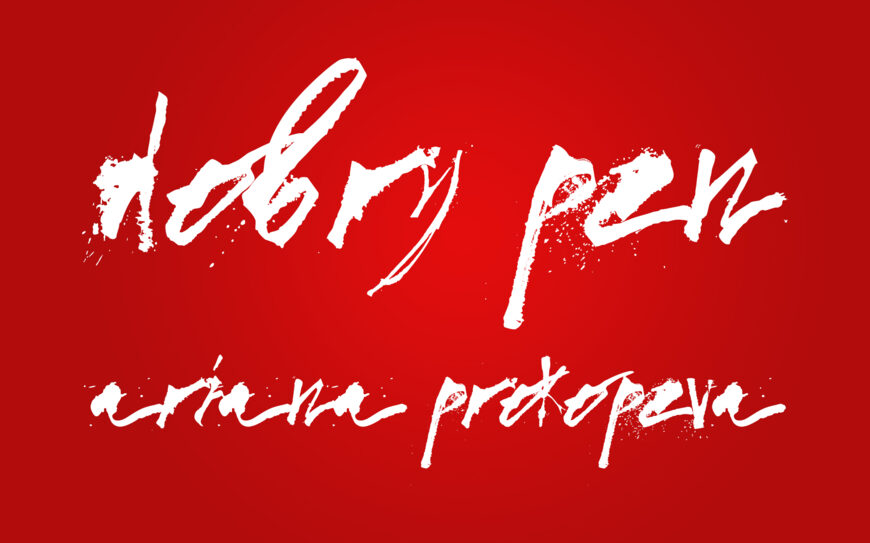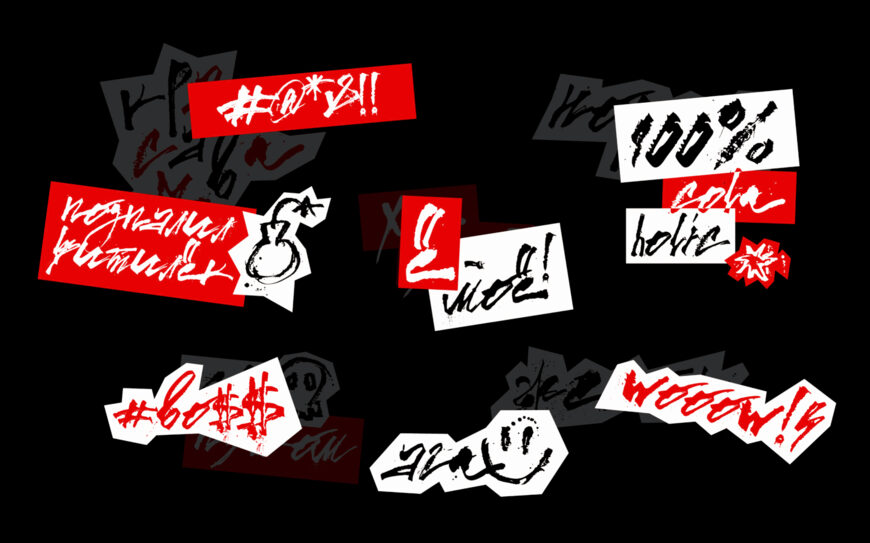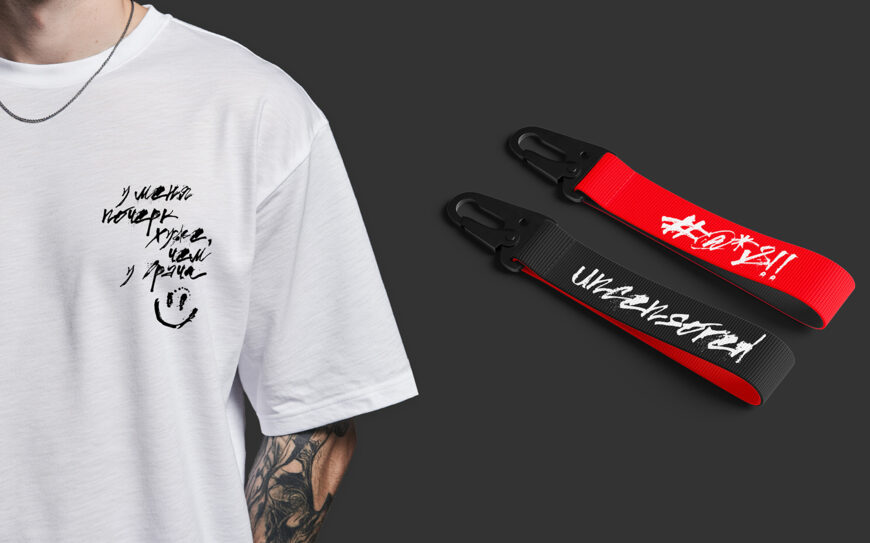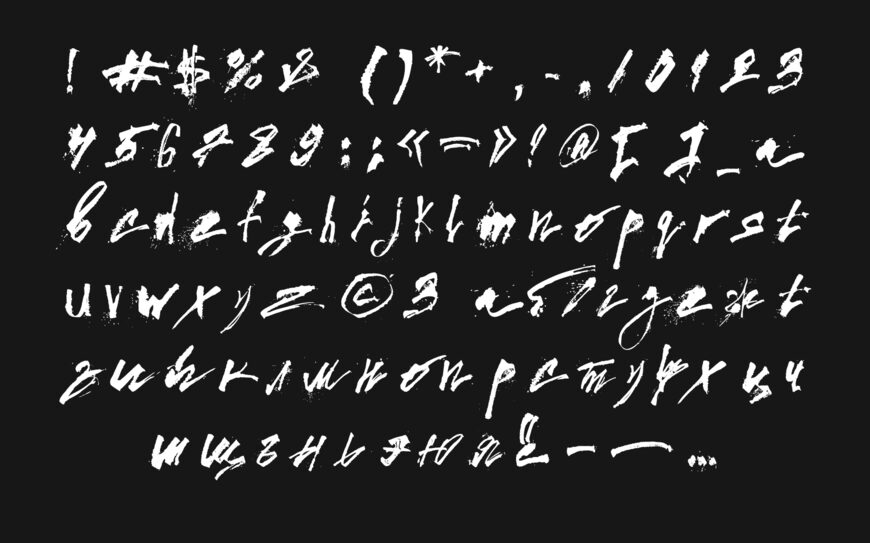
Dobry Pen, created by designer Ariana Prokopeva, is an expressive calligraphic display typeface inspired by lettering made with hand-folded Cola Pens and by street art culture.
It features dynamic, raw brushstrokes, authentic ink splatter textures, and a bold graffiti-like aesthetic. Capturing spontaneous organic movement, this font seamlessly bridges urban art and calligraphy—making it ideal for high-impact display typography, branding, poster design, and headlines in both Cyrillic and Latin alphabets.